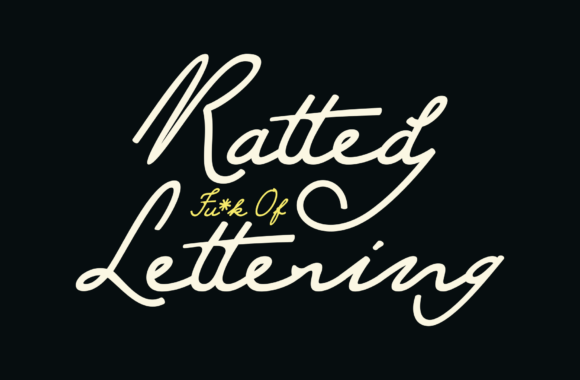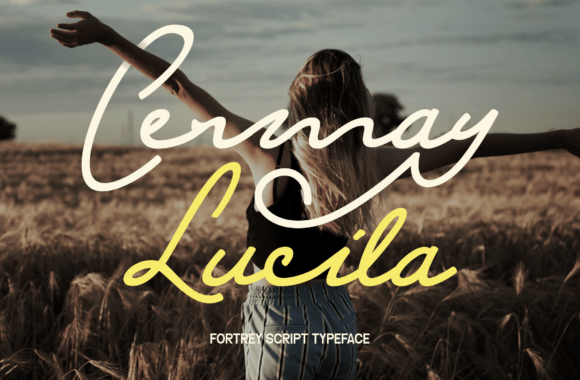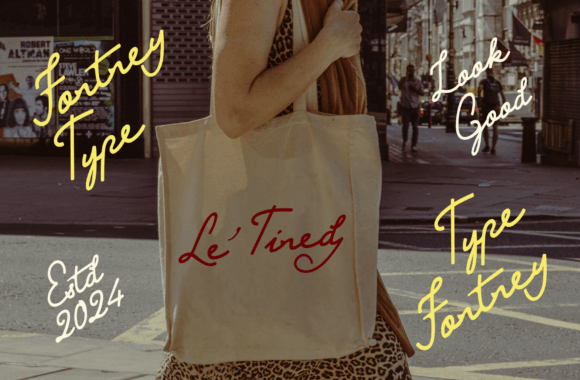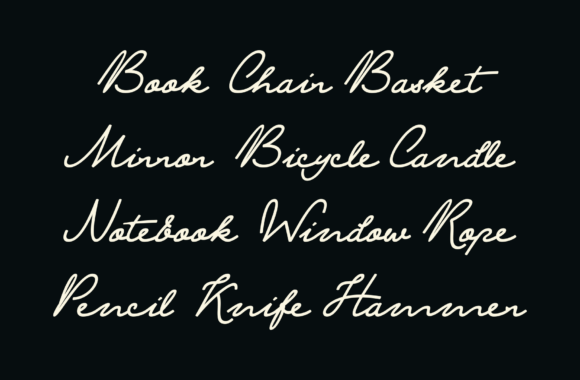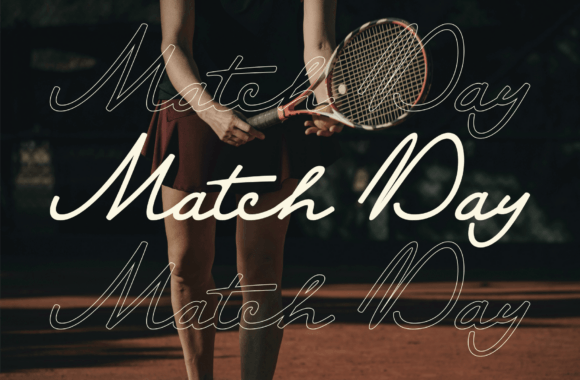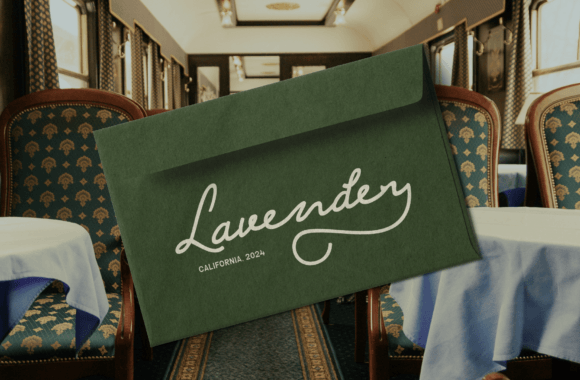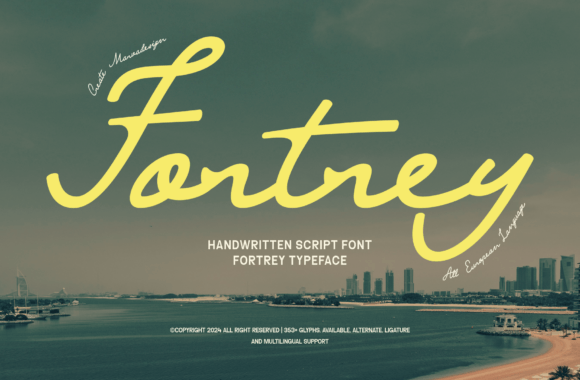
Introducing Fortrey: A Timeless Classic Script Handwritten Font
In the world of typography, few fonts manage to strike a balance between classic elegance and modern sophistication. Fortrey Font is one such exceptional typeface that embodies the perfect blend of vintage charm and contemporary aesthetics. Designed with a refined line style, Fortrey’s smooth, rounded contours evoke a sense of nostalgia, making it an ideal choice for designers and crafters seeking a touch of timeless elegance in their projects.
The Essence of Fortrey Font
Fortrey Font is a classic script handwritten font that exudes sophistication and refinement. Its carefully crafted design features a harmonious flow of characters, ensuring that each letter complements the next to create a beautiful, cohesive look. The font’s smooth lines and rounded contours give it a soft, approachable feel, while its elegant strokes and refined details add a touch of luxury and sophistication.
Key Features of Fortrey Font
- Refined Line Style: Fortrey’s line style is characterized by smooth, flowing lines that give the font its distinctive elegance.
- Harmonious Flow: The font’s characters are designed to flow seamlessly into one another, creating a beautiful, cohesive look.
- Carefully Crafted Alternatives and Ligatures: Fortrey features a range of alternative characters and ligatures, providing designers with the flexibility to create unique and creative typography.
- Vintage Charm: Fortrey’s classic design and smooth contours evoke a sense of nostalgia, making it perfect for projects that require a touch of vintage elegance.
Uses for Fortrey Font
Fortrey Font is an incredibly versatile typeface that can be used in a wide range of design projects, including:
- Branding: Fortrey’s elegant design makes it an excellent choice for logos, business cards, and other branding materials.
- Invitations: The font’s sophisticated look is perfect for wedding invitations, formal events, and other special occasions.
- Editorial Designs: Fortrey can add a touch of elegance to magazine articles, blog posts, and other editorial content.
Why Choose Fortrey Font?
With so many fonts available, why choose Fortrey? Here are just a few reasons why Fortrey stands out:
- Unique and Distinguished Appearance: Fortrey’s classic design and elegant strokes ensure that your work will stand out from the crowd.
- Creative Flexibility: The font’s alternative characters and ligatures provide designers with the flexibility to create unique and creative typography.
- Timeless Elegance: Fortrey’s vintage charm and sophisticated design ensure that it will remain a timeless classic for years to come.
In conclusion, Fortrey Font is a timeless classic script handwritten font that embodies elegance and sophistication. Its refined line style, harmonious flow, and carefully crafted alternatives and ligatures make it a perfect choice for designers and crafters seeking a touch of vintage charm and modern aesthetics in their projects. Whether used for branding, invitations, or editorial designs, Fortrey delivers a unique and distinguished appearance that is sure to elevate your work to the next level.